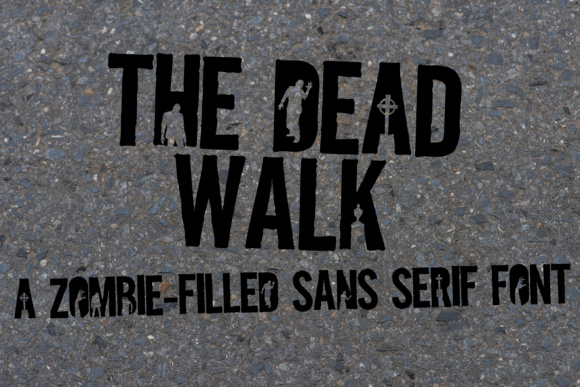
Behold a font unlike the living, "The Dead Walk Font" - a display font that's shambling in with its unique and gruesome style. With no familiar lowercase, this font breathes a new type of life into your designs, evoking a zombie-like flair that's sure to leave a lasting impression.
Picture this: a horror-themed poster with The Dead Walk Font as the star. The jagged, decaying letters, reminiscent of undead flesh, scream for your attention and tell an eerie tale that lingers in your mind long after you've looked away. Or envision a Halloween greeting card, where the letters crawl out from the grave, inviting recipients to a night of spine-chilling fun.
This font is more than just a design choice; it’s a chance to add an extra layer of storytelling and evoke powerful emotions in your audience. The Dead Walk Font is the perfect choice for those who dare to be different, who want to make a statement, and who relish the opportunity to create something truly haunting and memorable.
Embrace the macabre, unleash your creativity, and let The Dead Walk Font take your designs to the realm of the living dead. Dare to stand out and be remembered with this font that refuses to rest in peace.